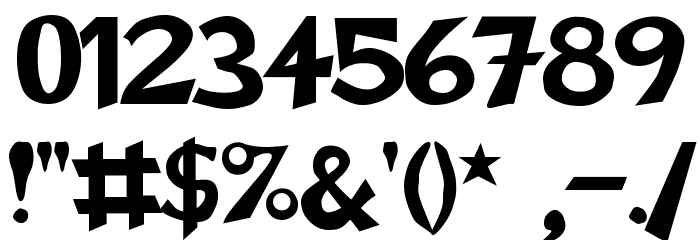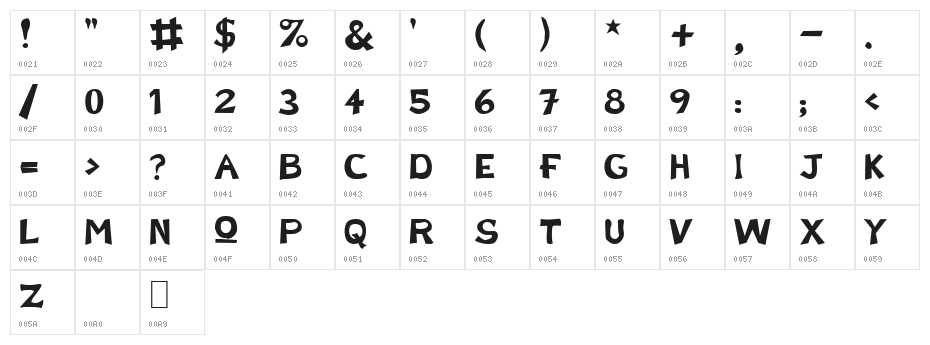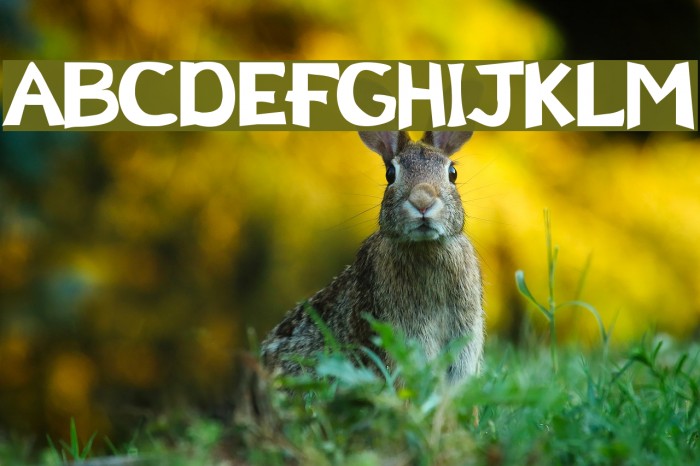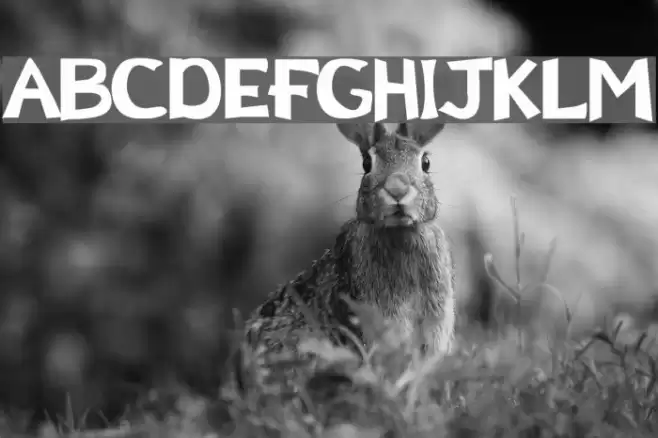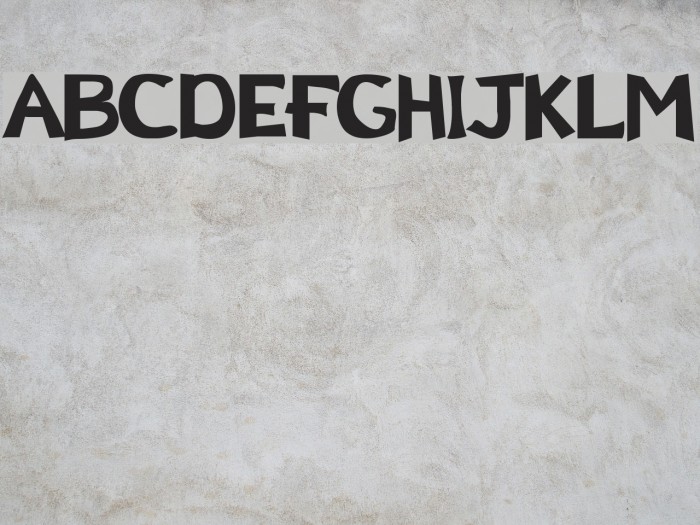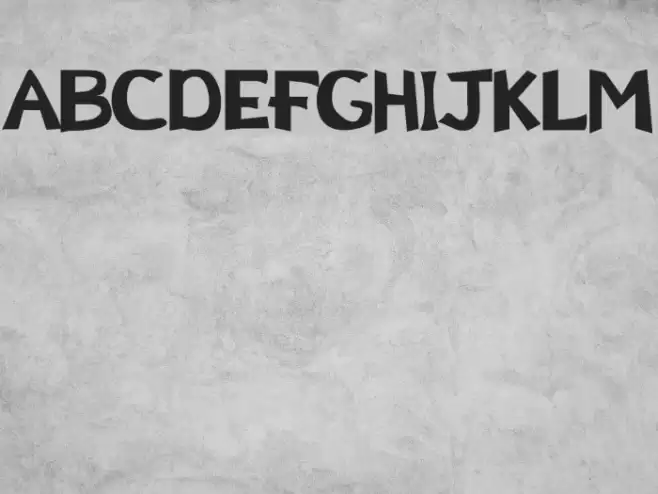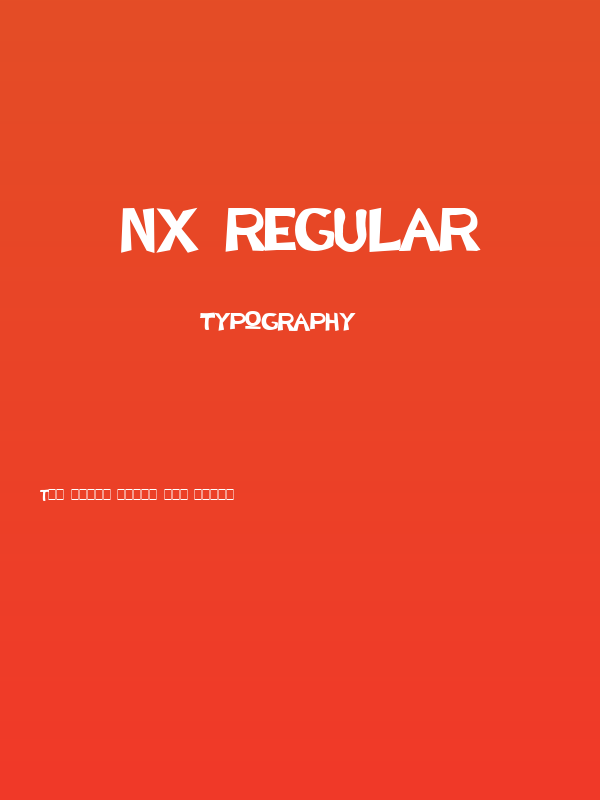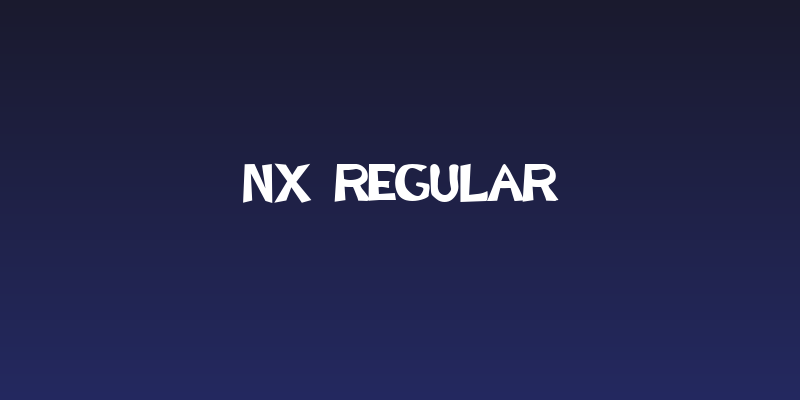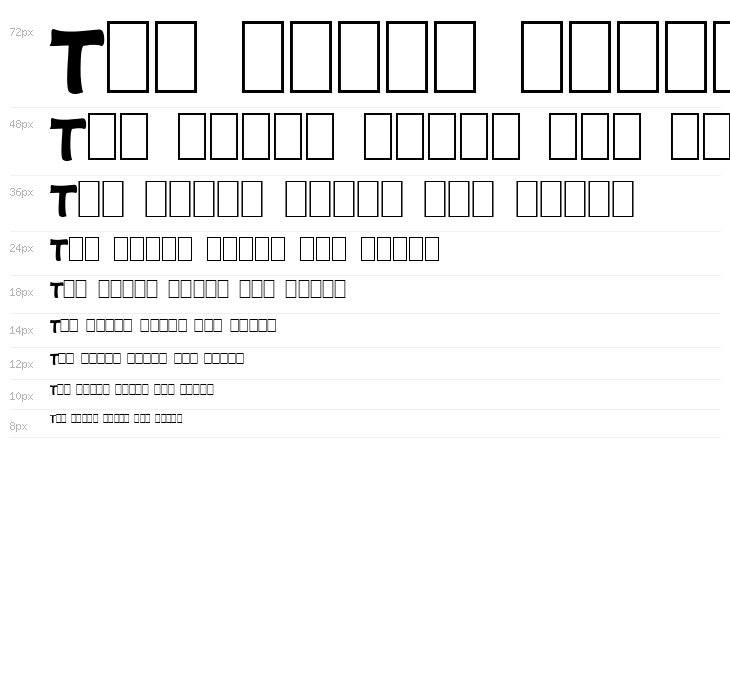
NX Regular Font
NX Regular Description
This font features a bold and dynamic style with a playful yet assertive character. The uppercase letters are designed with a slight forward slant, giving a sense of movement and energy. The strokes are thick and consistent, creating a strong visual impact. The numbers and special characters maintain the same boldness, ensuring uniformity across all characters. The font's unique style makes it stand out, with its slightly irregular shapes adding a touch of whimsy without compromising readability.
| Proposed Projects | Ideal for posters, headlines, branding projects, and any design that requires a bold statement. |